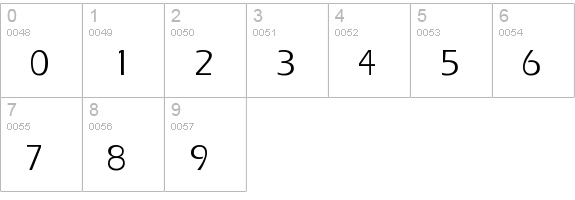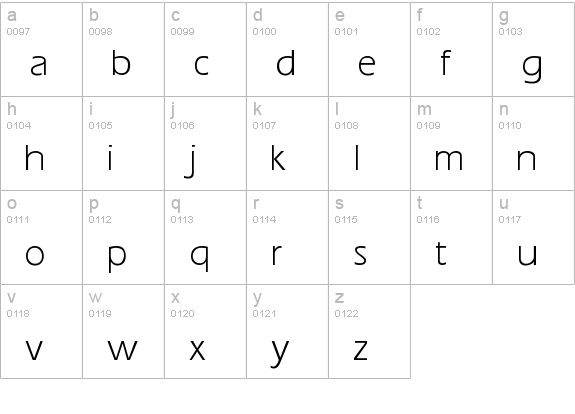
QTEraType Regular Font Details
QTEraType Regular is the standard, neutral variant in the QTEraType typeface family \xE2\x80\x94 well suited to general body text, paragraphs, and standard typographic work.
QTEraType Regular font is a truly remarkable typeface that combines elegance and versatility. It is the perfect choice for those seeking a font that exudes professionalism and sophistication, while still maintaining a touch of modernity. With its clean lines and balanced proportions, QTEraType Regular font offers a timeless appeal that can enhance any design project. Whether you are creating a website, designing a logo, or crafting a print advertisement, this font will effortlessly elevate your work to new heights. One of the most appealing aspects of QTEraType Regular font is that it is freely available to download at FontsMarket.com. This means that you can add this stunning font to your collection without any cost. The accessibility and generous nature of this font make it an excellent choice for designers, students, and anyone who appreciates high-quality typography. QTEraType Regular font showcases a wide range of characters, including uppercase and lowercase letters, numbers, punctuation marks, and special symbols. This extensive character set ensures that you have all the tools you need to bring your creative vision to life. The font's legibility and readability are also top-notch, guaranteeing that your message will be communicated clearly and effectively. The versatility of QTEraType Regular font is further enhanced by its ability to seamlessly adapt to various design styles. Whether you are aiming for a minimalist look or a more decorative approach, this font can effortlessly adapt and complement your design choices. Its adaptability ensures that you can use this font across different projects, from corporate branding to event invitations. In conclusion, QTEraType Regular font is a stunning typeface that combines elegance, versatility, and accessibility. Its timeless appeal, extensive character set, and seamless adaptability make it a must-have for any design enthusiast. Download this font for free at FontsMarket.com and elevate your designs to new levels of excellence.